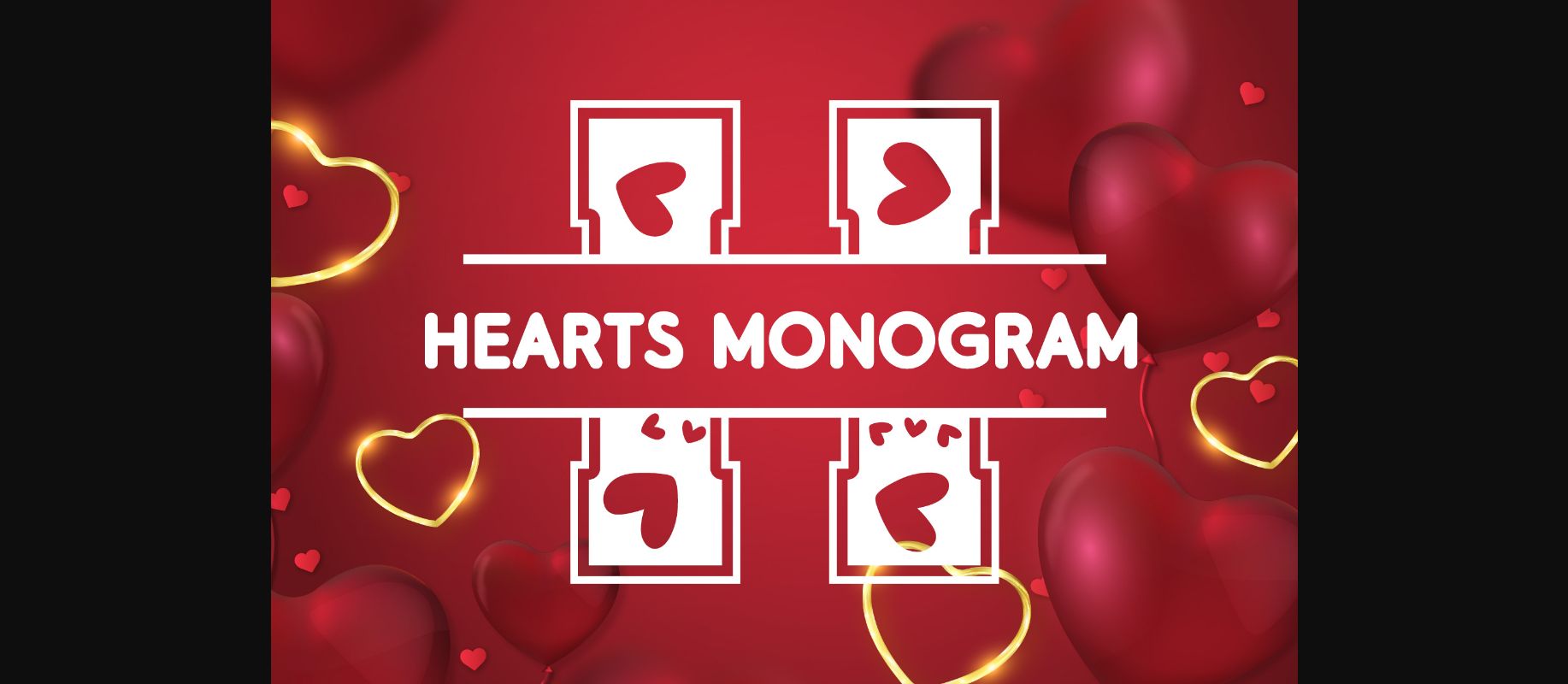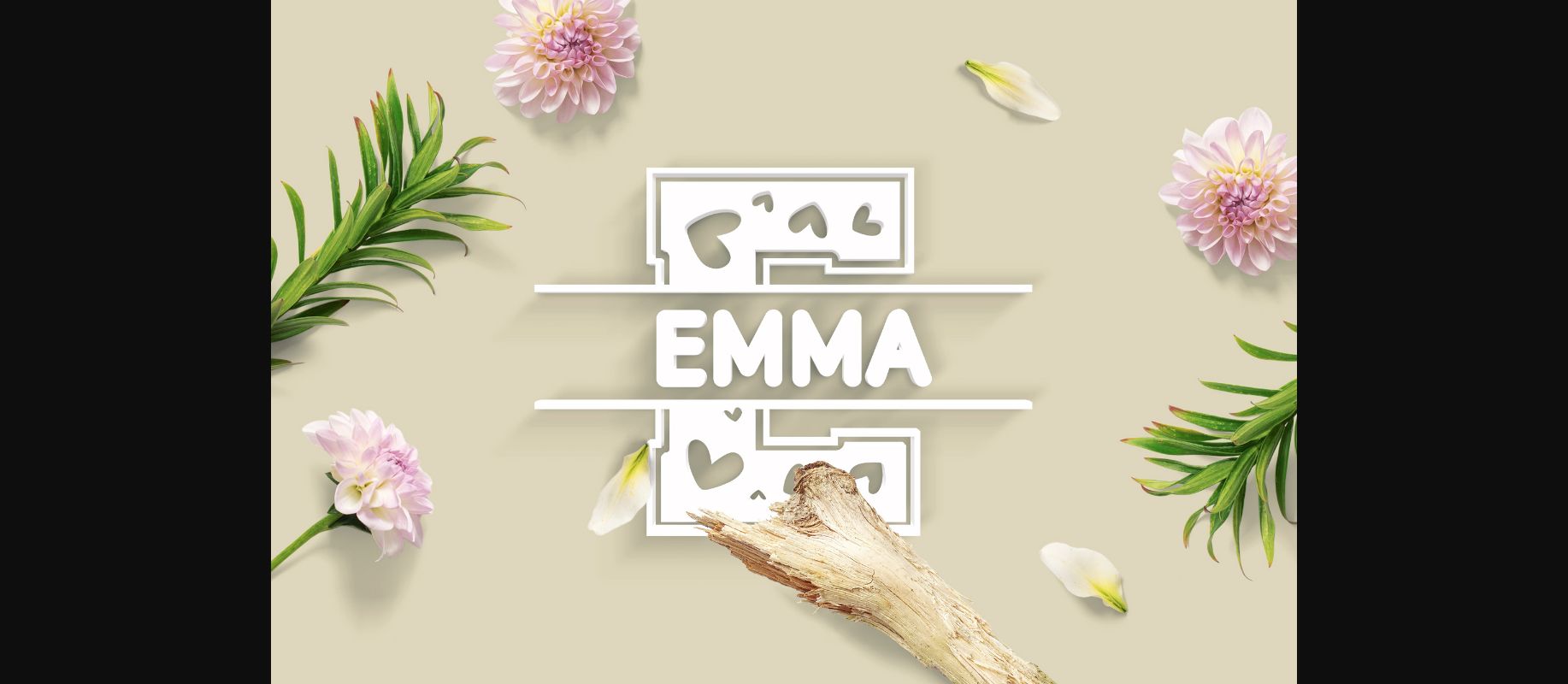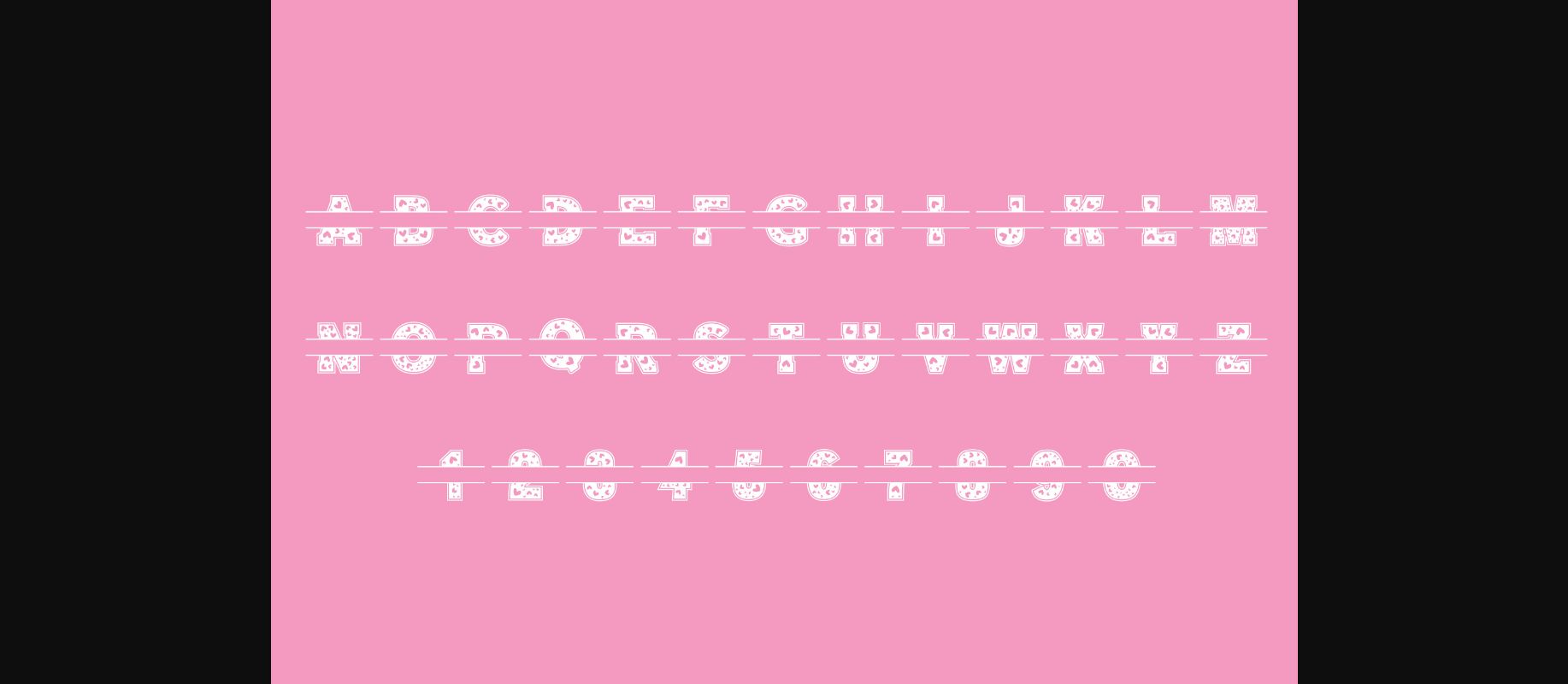
About Hearts Monogram Font
Hearts Monogram is a cool and bold display font. It features a trendy style and it is the ideal choice for a wide range of casual or informal designs.